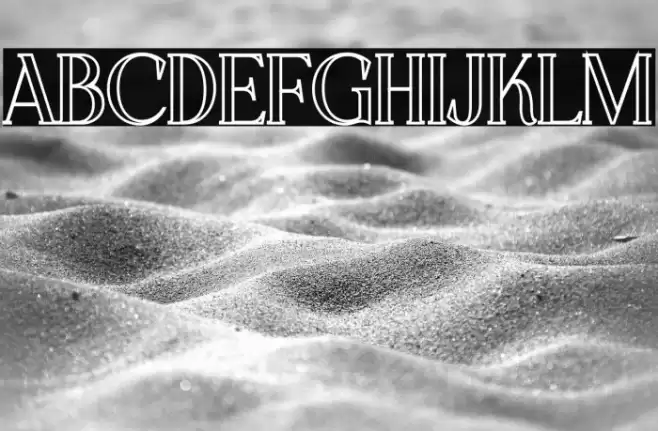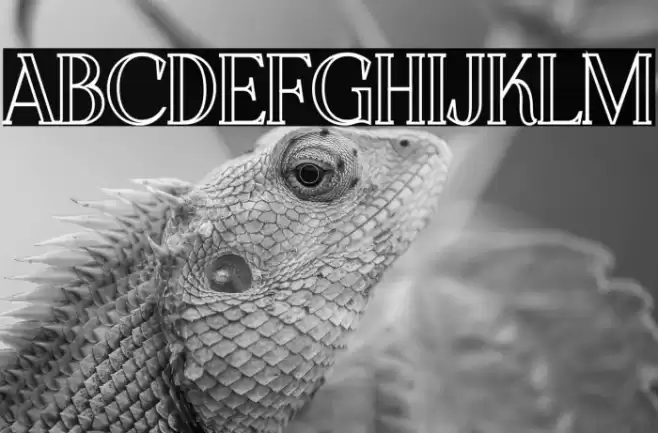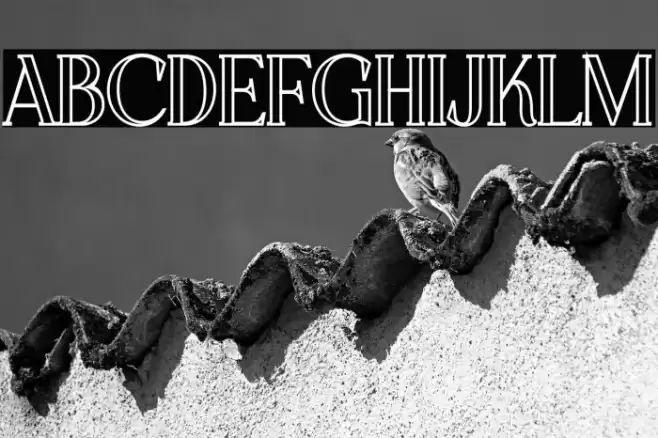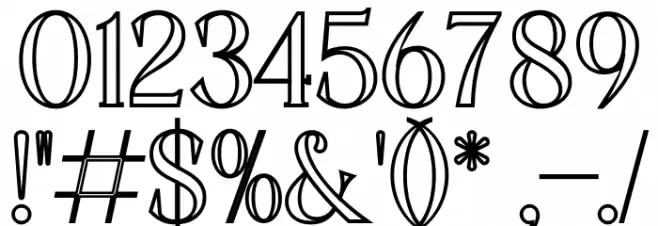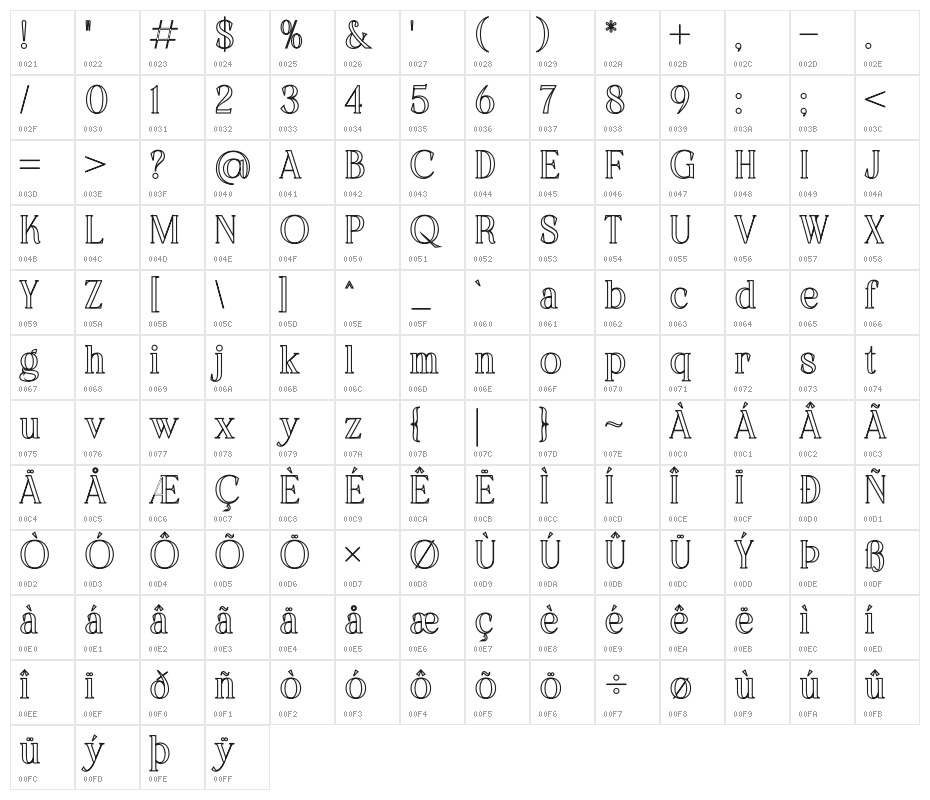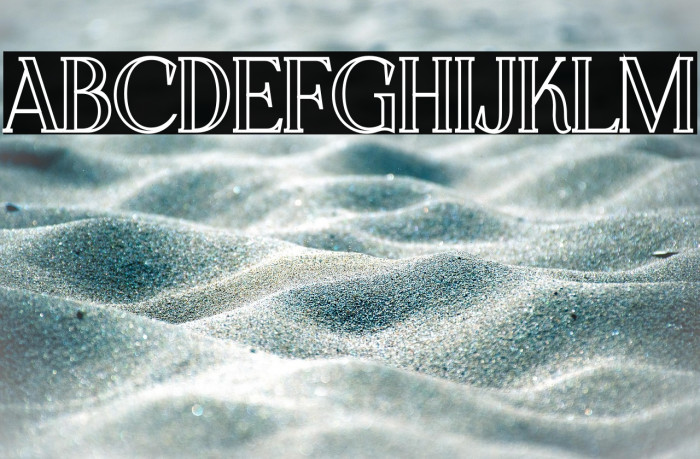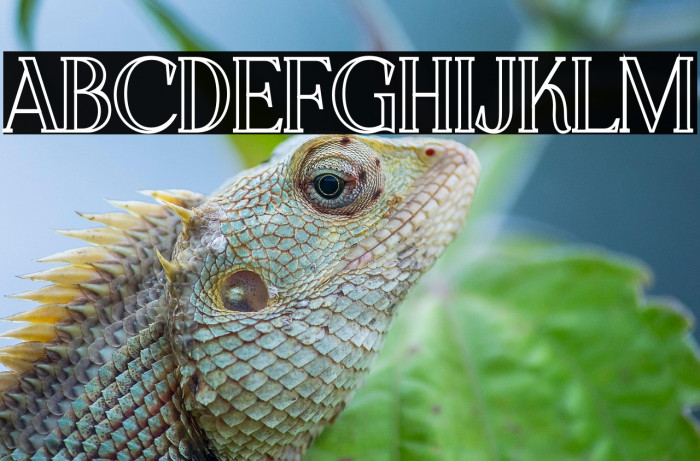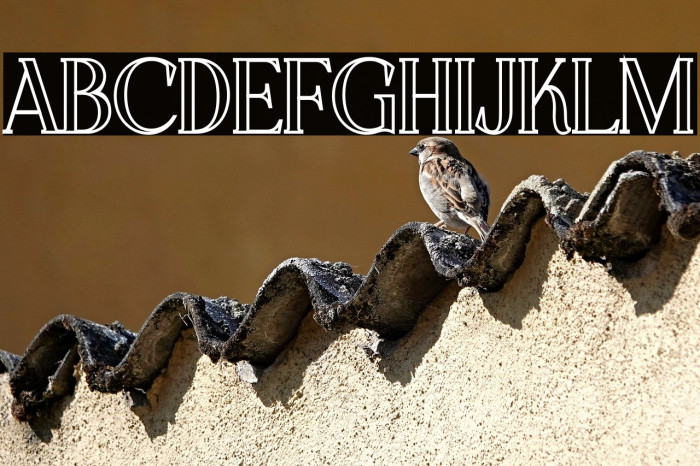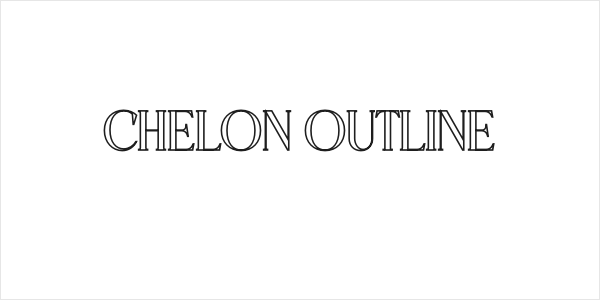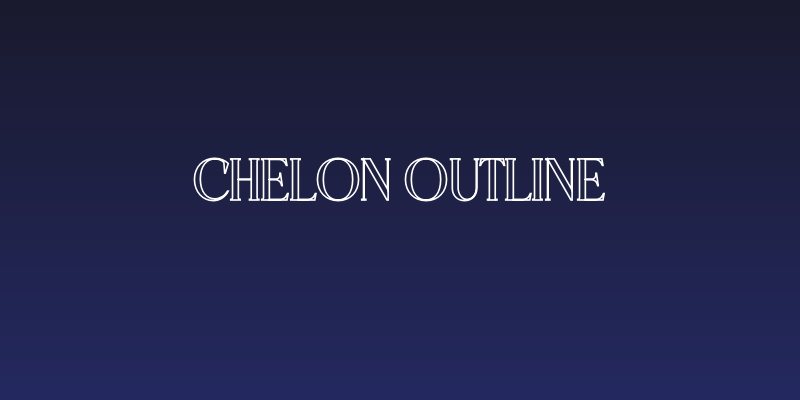
CHELON OUTLINE Font
CHELON OUTLINE Description
This font features a distinct outline style, characterized by its hollow interior and bold outer lines. The uppercase and lowercase letters maintain a consistent geometric structure, with sharp angles and clean curves. The numerals and special characters follow the same outlined aesthetic, providing a cohesive look across all glyphs. This font's design is both modern and eye-catching, making it suitable for a variety of creative applications. The spacing between characters is balanced, ensuring readability while maintaining its decorative appeal.
An outlined, geometric font with bold lines and a modern aesthetic from Uncategorized fonts.